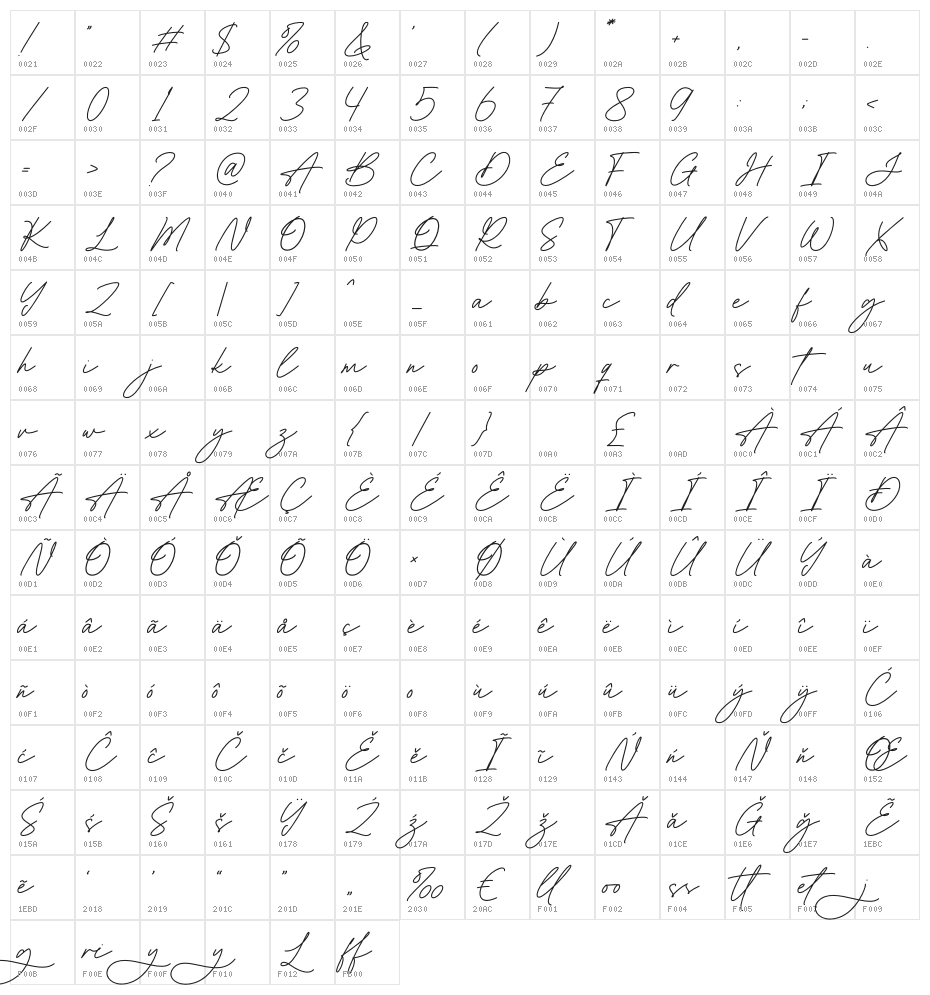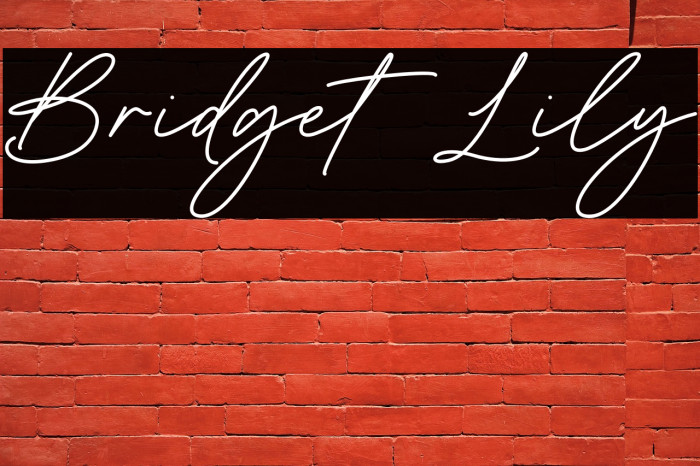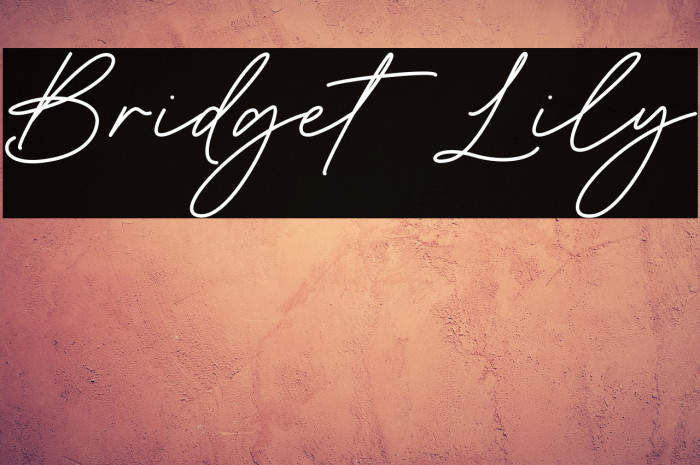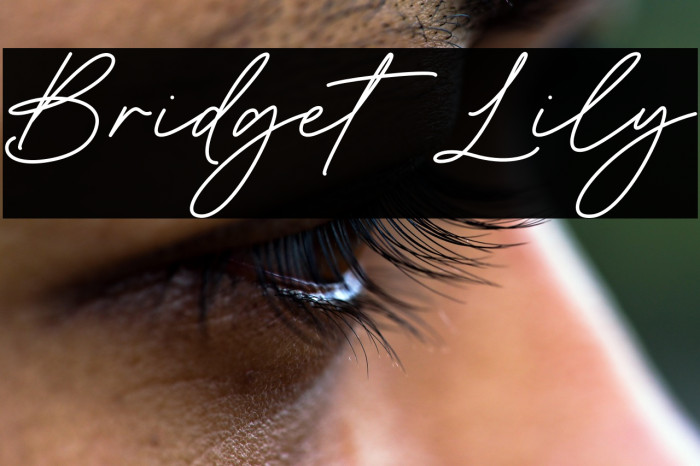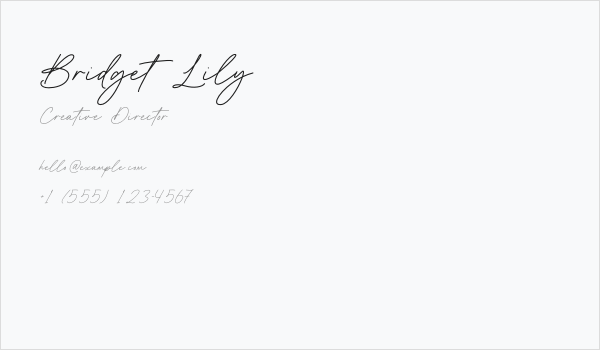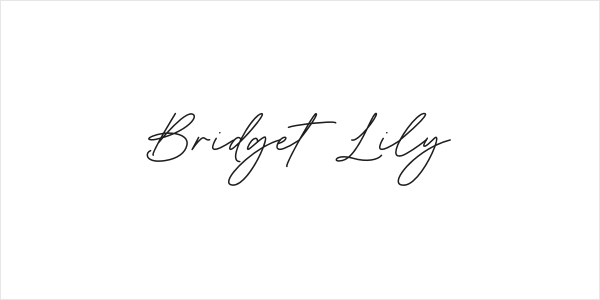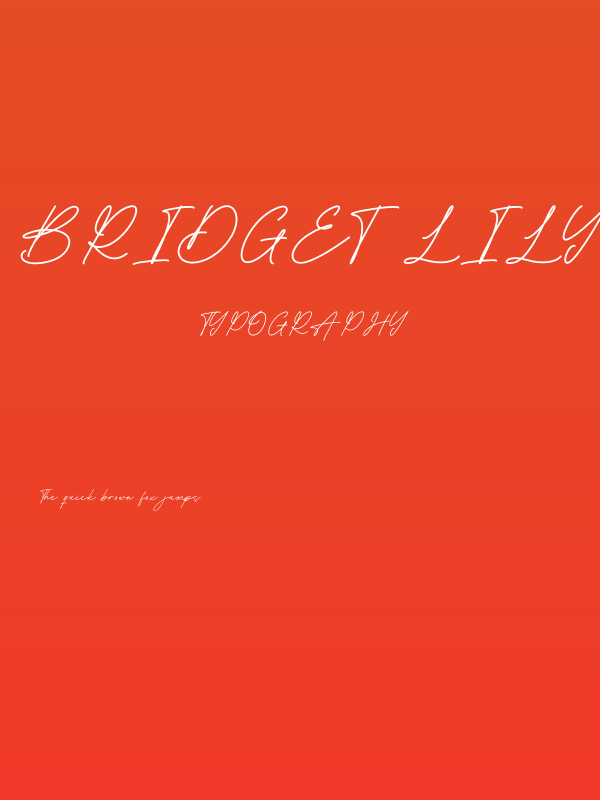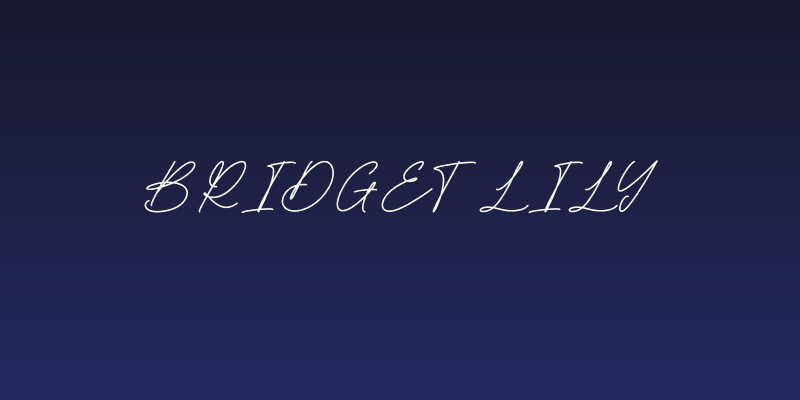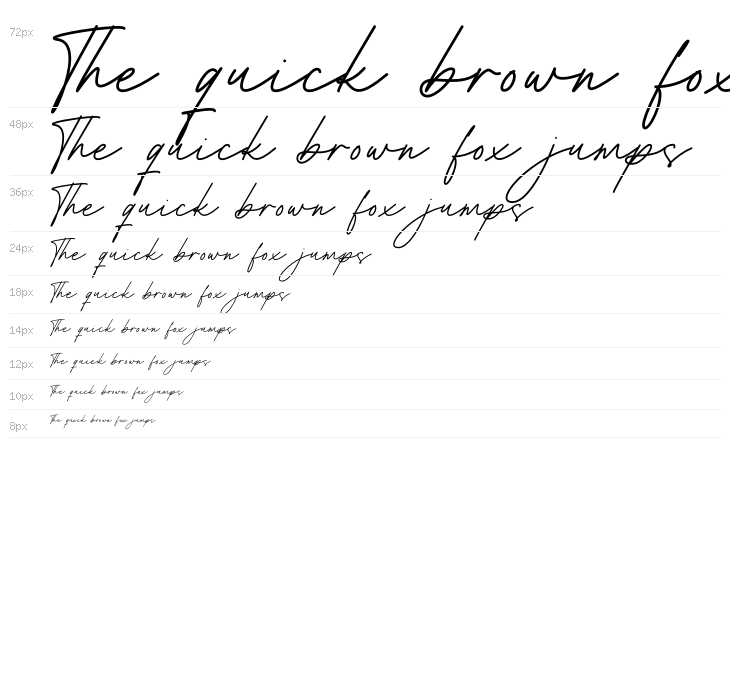
Bridget Lily Font
Bridget Lily Description
A flowing, cursive script font with a handwritten appearance, featuring thin, continuous strokes and natural letter connections. The characters are slightly slanted, with elegant loops and a casual, personal feel.
| Overall Style | Handwritten, Elegant, Casual |
| Use Case | Logos, Invitations, Greeting cards, Quotes |
| Proposed Projects | Invitations, personal notes, greeting cards, branding, quotes, social media graphics. |